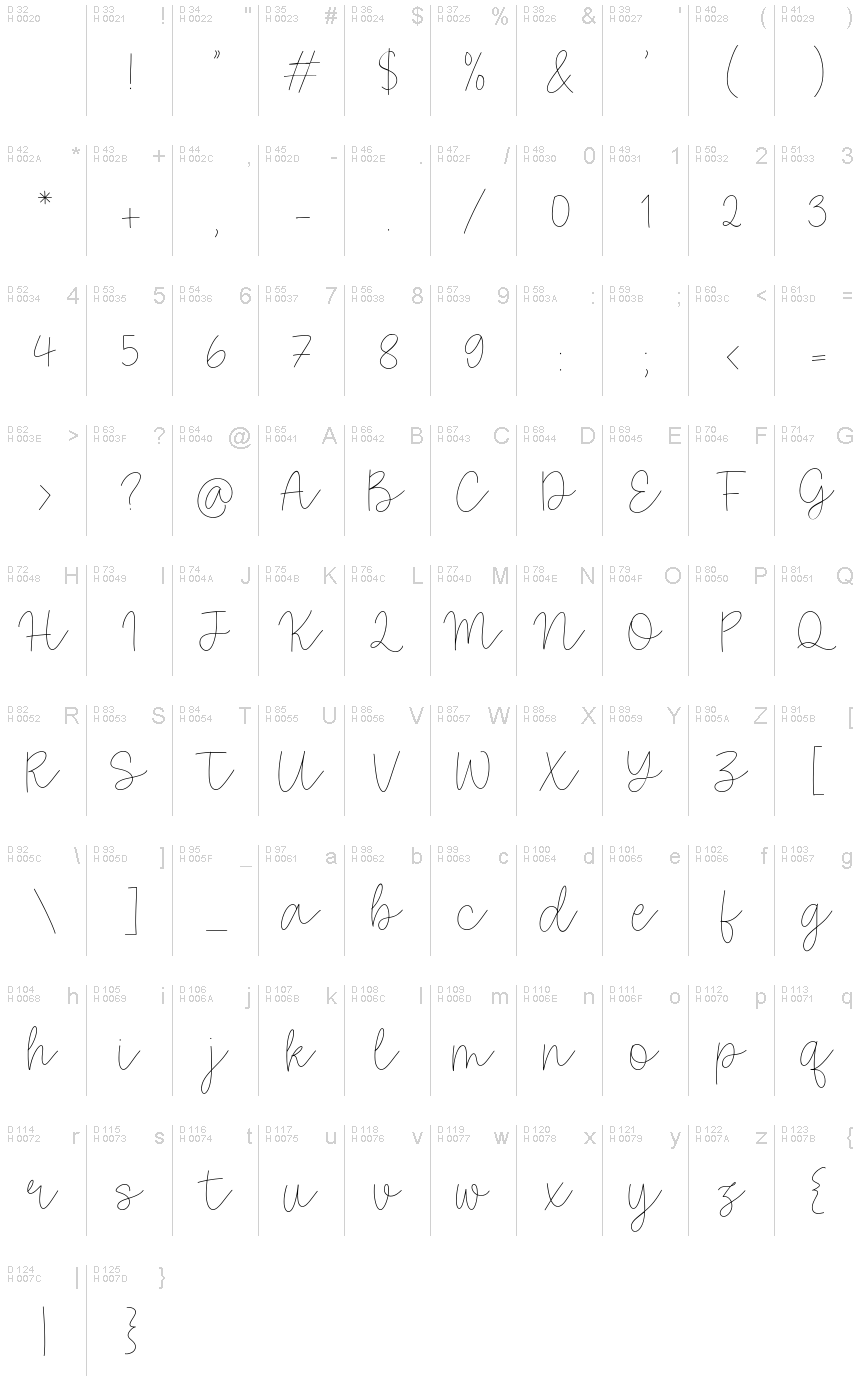
Black Almond
Black Almond font was created by Balpirick Studio. This is a handwritten style font that is cursive and flowing. It’s elegant with an informal touch, featuring connected letters that suggest handwritten penmanship.
Black Almond font is soft but usable in a wide range of contexts whether you’re looking for wedding projects, quotes, logos, DIY projects, cutting machines and more! The distinct style of the Black Almond can make your creations look really fun while adding elegance.